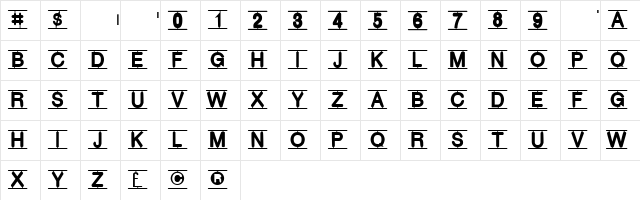
PlasticMan Medium
PlasticMan takes a measured approach to typography — its balanced proportions and neutral character make it a reliable workhorse for both digital and print work.